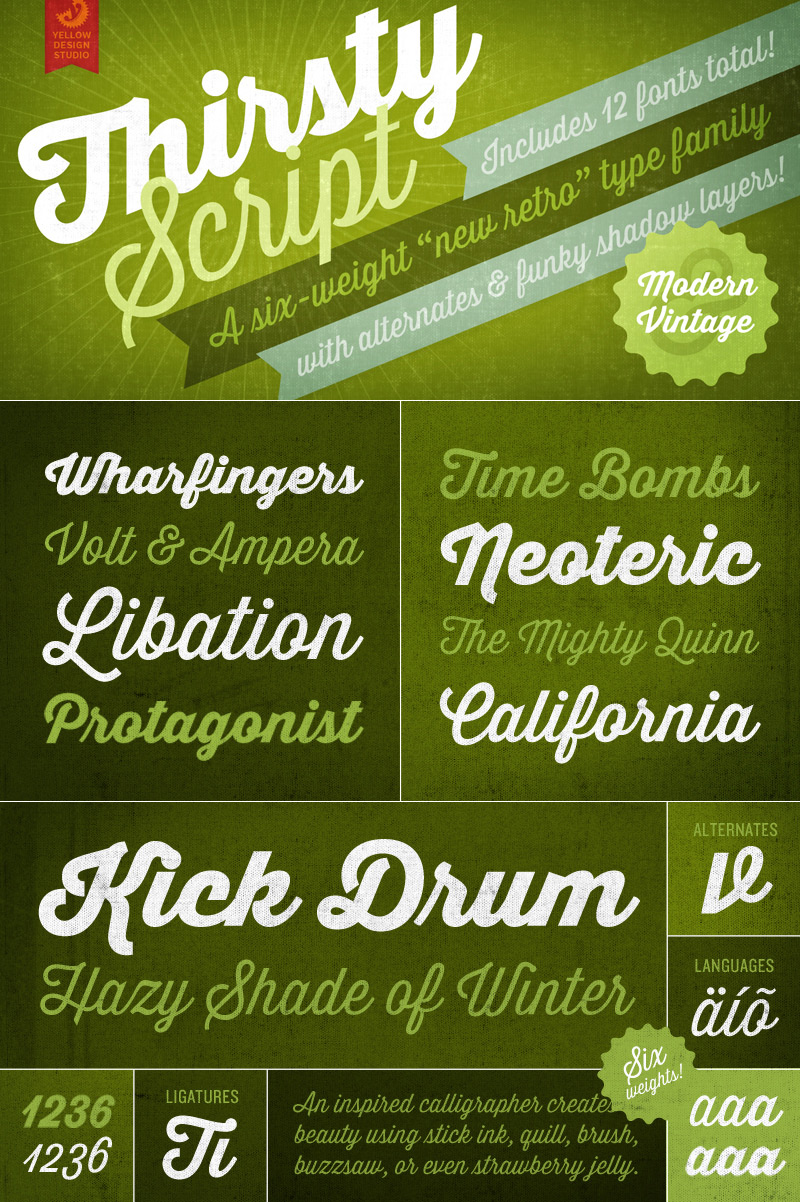
Font name: | Thirsty Script |
Author: | Ryan Martinson |
Thirsty Script Extrabold Demo is for personal use only. It includes all the upper and lowercase characters, alternates and ligatures, but doesn't include punctuation and other characters. For a commercial license and complete versions of the entire 12-font family, visit http://www.myfonts.com/fonts/yellow-design/thirsty-script Thirsty Script from Yellow Design Studio is a contemporary script conceived as a marriage of elements from vintage signage scripts, Wisdom Script, Deftone Stylus, and Lobster. The result is a typeface with a ‘new meets vintage’ vibe. It’s friendly with an edge...a mixture of retro script, modern sans serif, and a shot of caffeine. Features include six weights from Light to Black, shadow layers, old-style figures, contextual alternates (for a slightly more traditional feel), multiple language support, and a handy selection of ligatures and stylistic alternates. Tip: In Photoshop setting anti-aliasing mode to "smooth" may give the best results. |